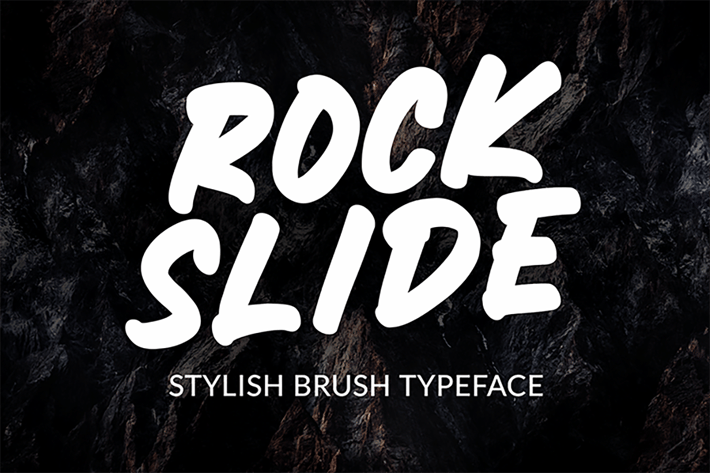
Rockslide - Motion Font
Introducing ROCKSLIDE, a stylish marker font designed to elevate your brand's identity. Available in two styles, Regular and Bold, ROCKSLIDE is perfect for creating stunning logotypes and lettering that make a statement. Its dynamic and edgy look ensures your designs stand out, capturing attention and leaving a lasting impression.
Whether you're designing t-shirt/apparel graphics, promotional materials, sports branding, music festival posters, quotes, or special event announcements, ROCKSLIDE is the ideal choice. Its versatility and bold style make it perfect for any project, adding a touch of excitement and creativity.